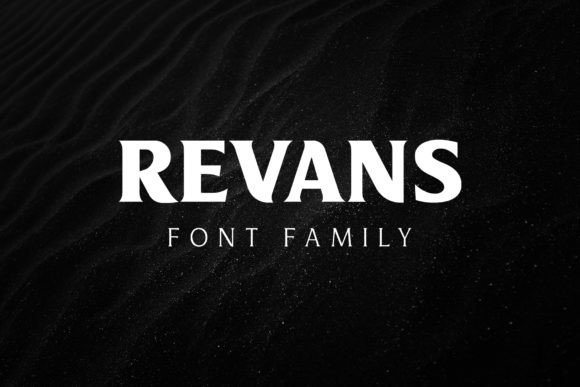
Revans Serif Font Free
Revans Serif Font is a Serif font inspired by the nineties. A modern font that is both memorable and stylish. It’s designed and shared by sartstudio. This font is carefully designed with a solid, luxurious, refined look & feel.
This font is suitable for use in many design forms, for example sci-fi scenes, retro gaming, magazines, postcards, logos, DIY Projects, invitation card, quotes and much more.